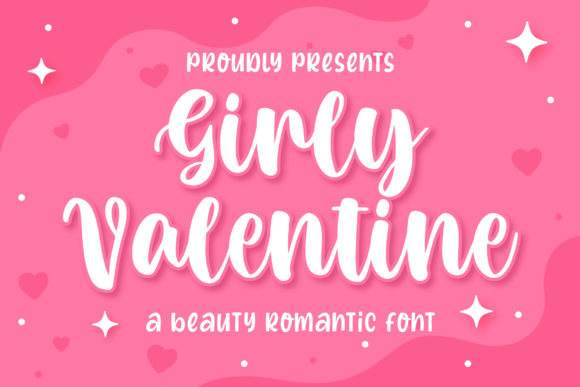
Introducing Girly Valentine, the script font that exudes chic elegance and playful charm. Crafted by the talented Blankids Studio, this font family is not just a collection of letters; it's an expression of creativity and style that will transform your designs into exquisite masterpieces.
Imagine your business plan adorned with the delicate strokes of Girly Valentine, captivating your audience with its graceful curves and playful personality. This font is the epitome of professionalism, adding a touch of sophistication to your presentations, proposals, or any business-related project.
But Girly Valentine's versatility extends beyond the corporate world. Its whimsical nature lends itself beautifully to personal projects, such as invitations, greeting cards, and social media posts. Picture your wedding invitation adorned with the enchanting script of Girly Valentine, setting the tone for a day filled with love and joy. Or envision your social media feed adorned with quotes and messages written in this charming font, captivating your followers with its unique allure.
With Girly Valentine, you'll unlock a world of creative possibilities. Its characters dance along the baseline, adding a dynamic touch to your designs. Whether you're creating logos, branding materials, or simply adding a personal touch to your digital content, Girly Valentine will elevate your work to new heights of elegance and sophistication.